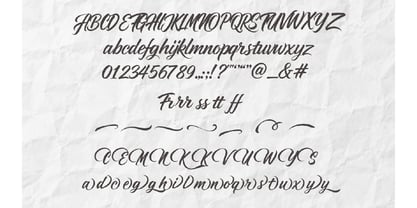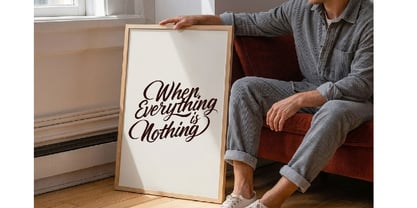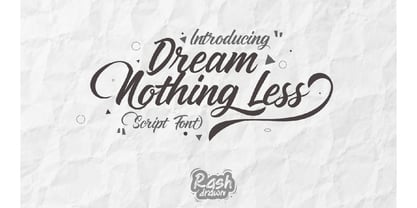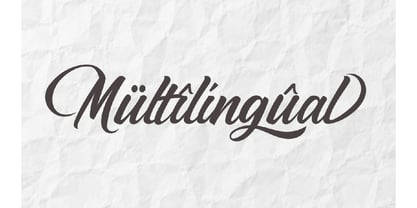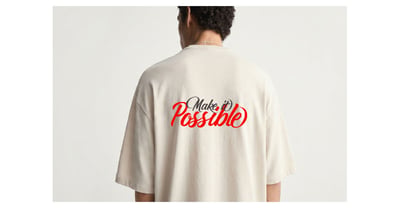
Dream Nothing Less
by Rashdrawn
The Dream Nothing Less Font Family was designed by Dadan Wildan and published by Rashdrawn. Dream Nothing Less contains 1 styles. More about this family
Dream Nothing Less is a beautiful, modern, and expressive signature script font. Crafted with a natural flow and artistic touch, this font captures the essence of elegant hand-lettering. Its authentic feel makes it perfect for projects that require a personal, sophisticated, and stylish look.
Whether you are designing logos, wedding stationery, social media graphics, quotes, or branded merchandise, Dream Nothing Less adds a touch of class to every project.
• Multilingual Support: Includes characters for various languages.
• Ligatures & Alternates: Stylistic sets to make your typography look truly unique and custom-made.
Perfect for:
• Logos and Branding
• Wedding Invitations and Event Stationery
• Social Media Quotes and Posts
• T-shirt Designs and Apparel
• Packaging Design and Labeling
• Any creative project that needs a signature, handwritten aesthetic.